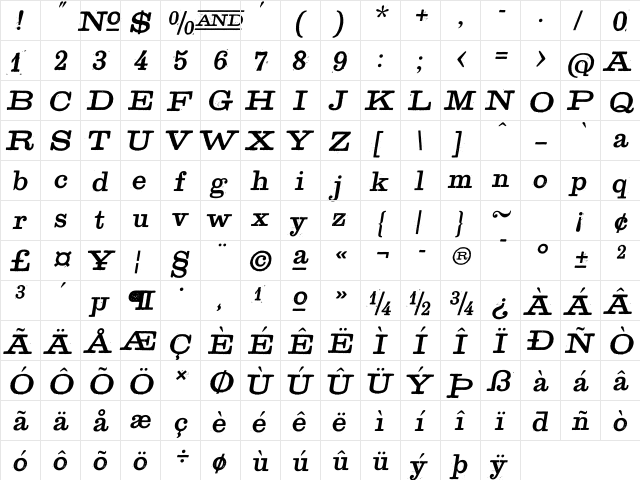
Golden Age Italic
Design Context for Golden Age Typeface
Golden Age takes a measured approach to typography — its balanced proportions and neutral character make it a reliable workhorse for both digital and print work. The slanted form adds forward momentum and visual energy.
Pro Tip: Try Golden Age for annotation and caption copy alongside an upright companion — the contrast in angle creates a dynamic but ordered typographic system.